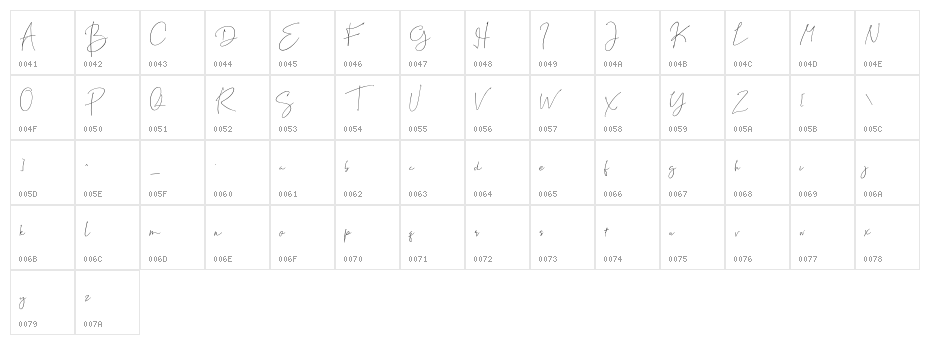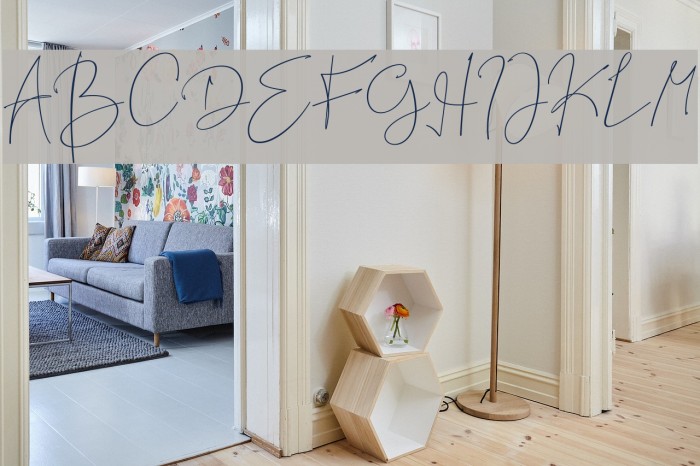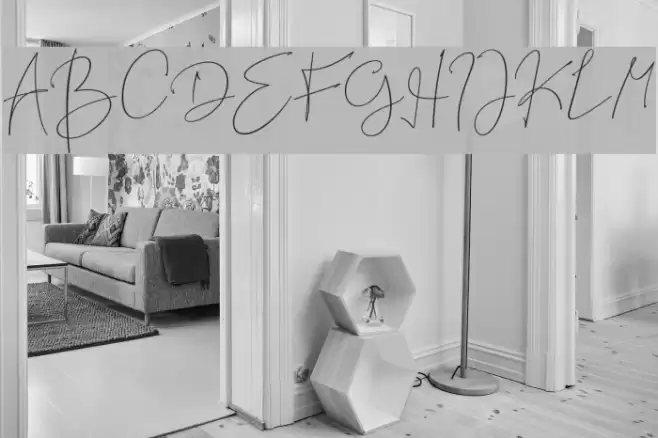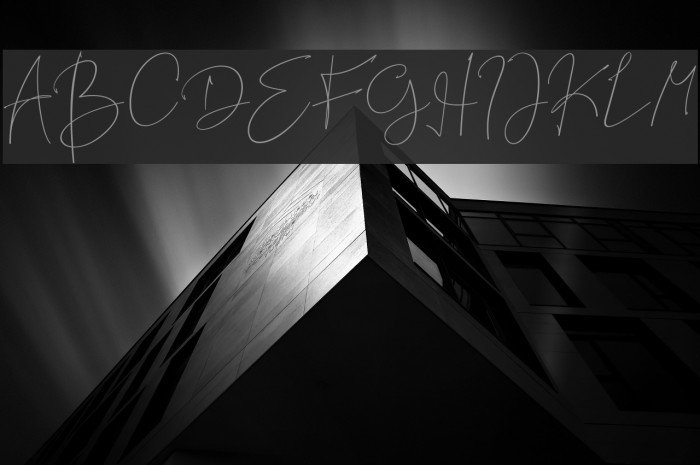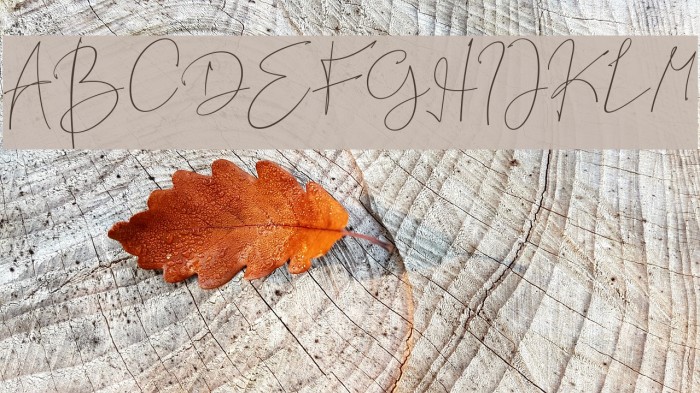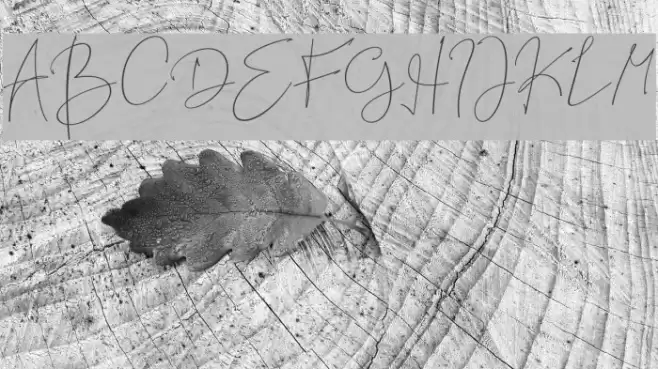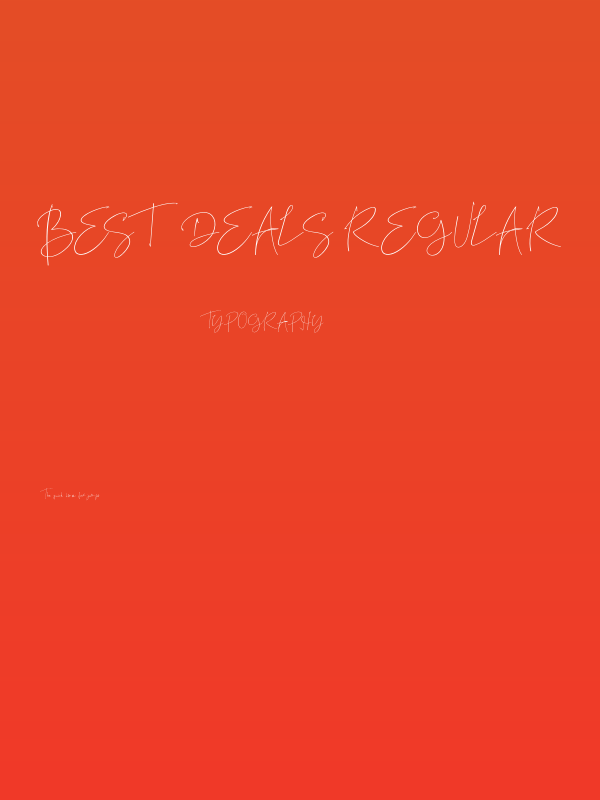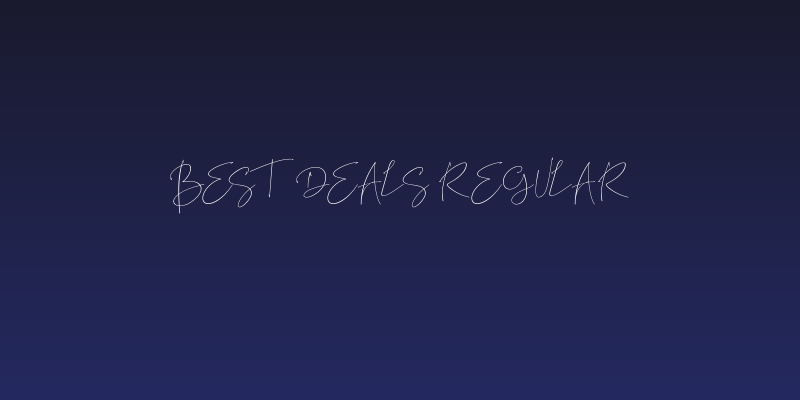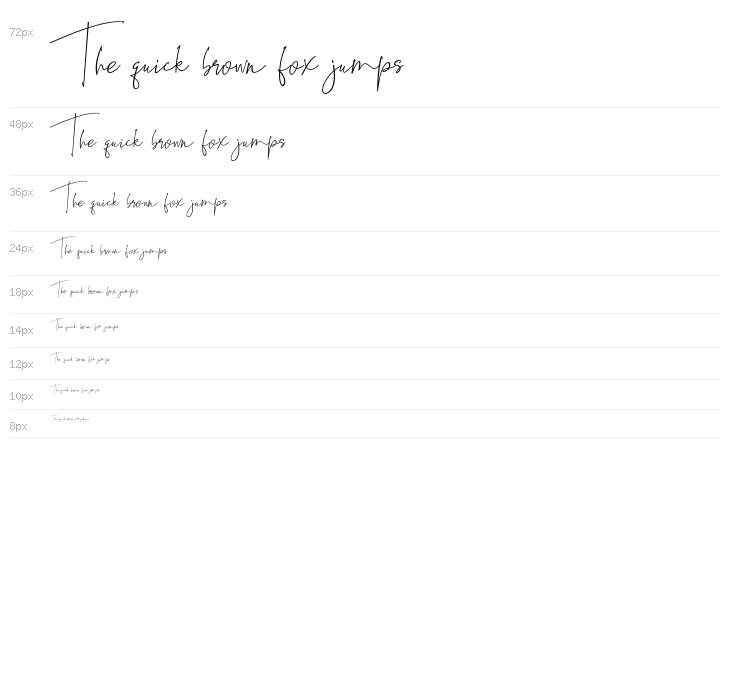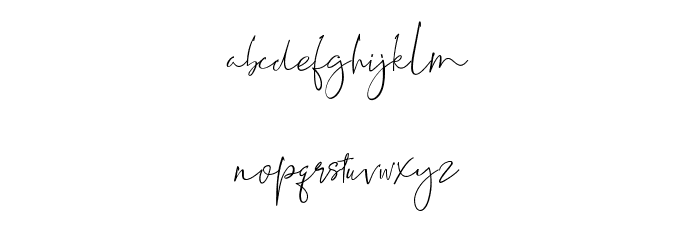
Best Deals Regular Font
Best Deals Regular Description
This font features an elegant, flowing script style with a handwritten appearance. The characters are connected in a fluid manner, giving it a personal and artistic touch. The strokes are thin and delicate, with varying thickness that adds a dynamic and lively feel. The uppercase letters are tall and graceful, while the lowercase letters maintain a consistent flow, enhancing readability. This font exudes a sense of sophistication and charm, making it suitable for creative and expressive projects.
| Proposed Projects | Ideal for wedding invitations, greeting cards, personal branding, and artistic projects. |